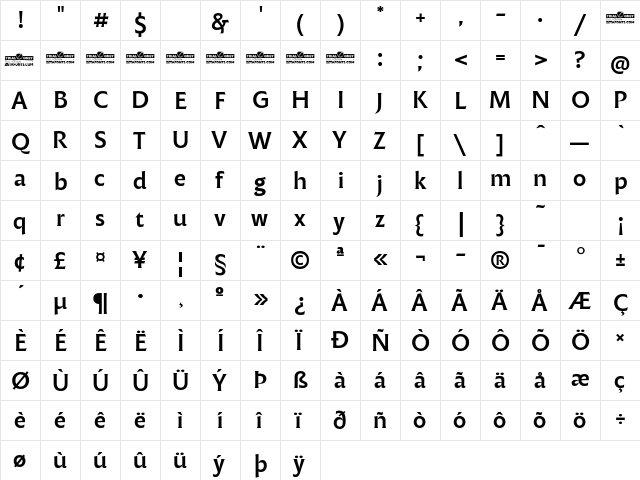
Malik Trial Medium
| Foundry | Zetafonts |
| Designer | Andrea Tartarelli |
Design Context for Malik Trial Typeface
Malik Trial offers clean, dependable letterforms without strong stylistic allegiance, making it a practical choice for designers who need flexibility.